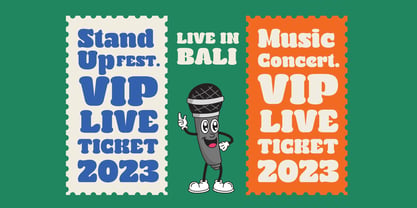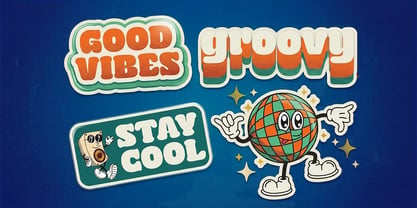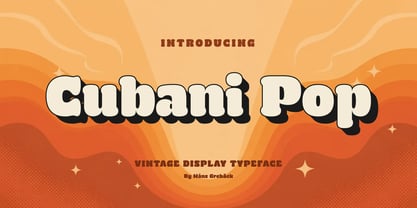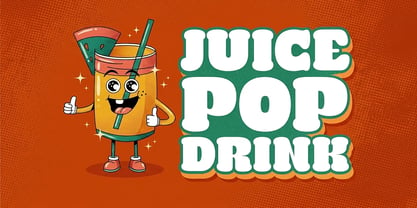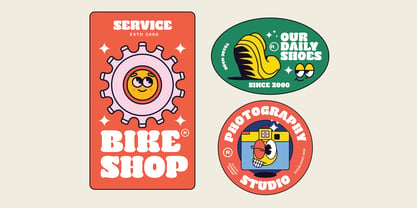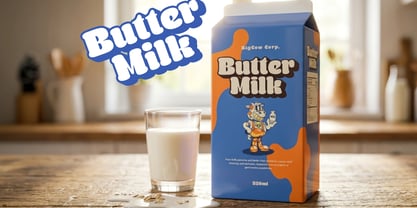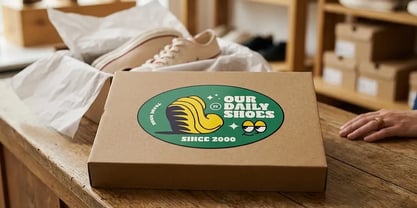
Cubani Pop
by Mans Greback
The Cubani Pop Font Family was designed by Måns Grebäck and published by Mans Greback. Cubani Pop contains 4 styles and family package options. More about this family
Cubani Pop is a chunky retro display typeface with soft, rounded, bubble-like letterforms.
The letters are heavy and full, with thick strokes and gently swelling curves that give every word a plump, friendly weight. It carries the easygoing pop of seventies lettering, set with a relaxed rhythm and a bold three-dimensional presence. Picture it glowing across the front of an old soda fountain, or stacked big and warm on the sleeve of a funk record.
Designed and created by Mans Greback.
The font is built with advanced functionality and guaranteed top-notch quality, containing stylistic and contextual alternates, ligatures and more automatic and manual features; all to give you full control and customizability.